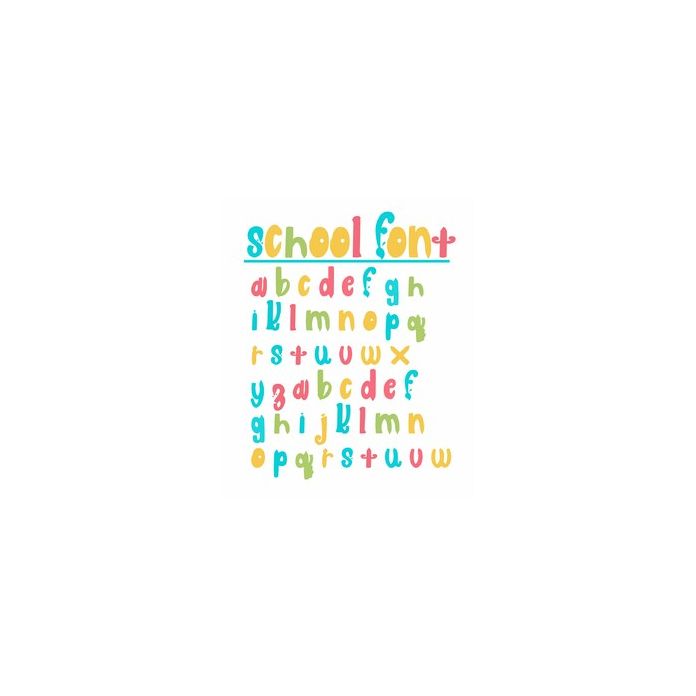
This is the colored Solid Version of the School Font. It contains small letters. It can be combined with the Outline Color Version of the font for more fun and intriguing combinations. Use with headlines and quotes for more creative and fun school projects.